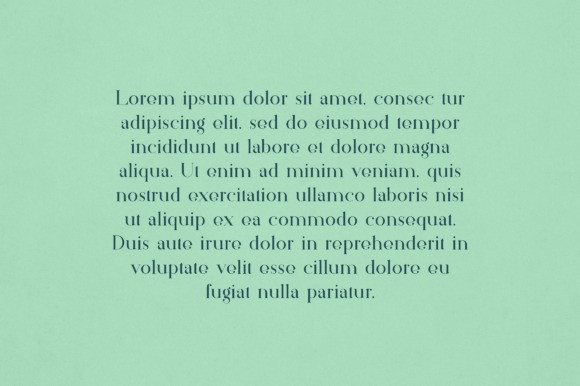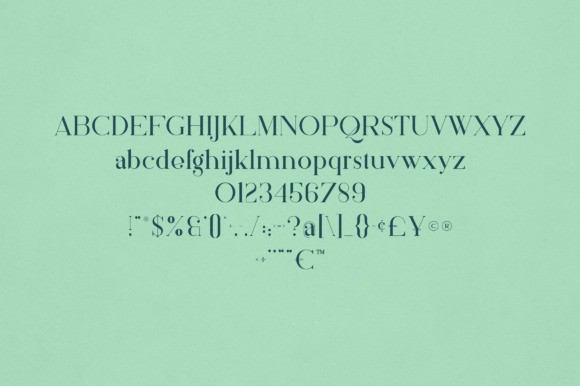
Beeba Font
Beeba Font is an elegant and versatile font that will make your typography truly unique! It will enchant every logo, branding, headline, or plain text!